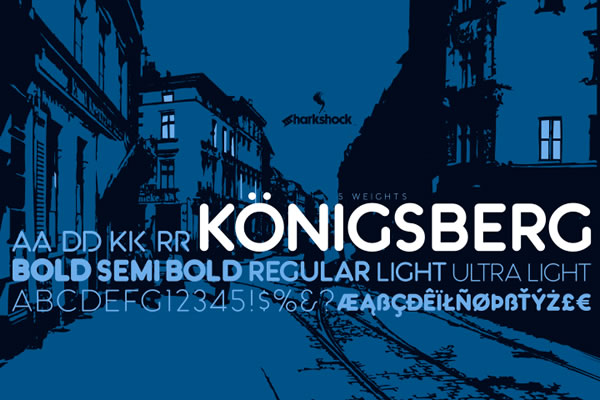
Königsberg Font: A Playful Retro Display Font for Bold Branding & Posters
About the Königsberg Font
Crafted with precision, the Königsberg Font is ready to bring your ideas to life. Königsberg is a fun and clean display font with 5 different weights for many different uses.
It’s sof-tend style captures the feel of classic doughnut shops and children’s books of the 70’s. This rounded sans serif features matching uppercase and lowercase characters with the exception of Light and Ultra Light.
Basic latin, extended latin, diacritics, punctuation, and kerning are available. Use the Bold version for a kid friendly poster or Ultra Light for an elegant logo.
Königsberg excels as a display typeface for headlines, short-form text in branding materials, and eye-catching packaging designs. Its retro-inspired charm works well for projects evoking nostalgia or a playful, friendly aesthetic. Avoid using it for body copy or lengthy paragraphs; its rounded forms can hinder readability at smaller sizes.
The font’s core personality is cheerful and approachable, yet refined. It’s ideally suited for brands targeting younger demographics or those wishing to convey a sense of fun and approachability without sacrificing visual sophistication.
For effective pairings, consider pairing Königsberg Bold with a clean sans-serif like Lato for a modern contrast, or with a classic serif like Garamond for a more traditional feel. The lighter weights could be beautifully complemented by a delicate script font for a touch of elegance in logo design or invitations.
Königsberg Font Usage Examples
Königsberg Font Example